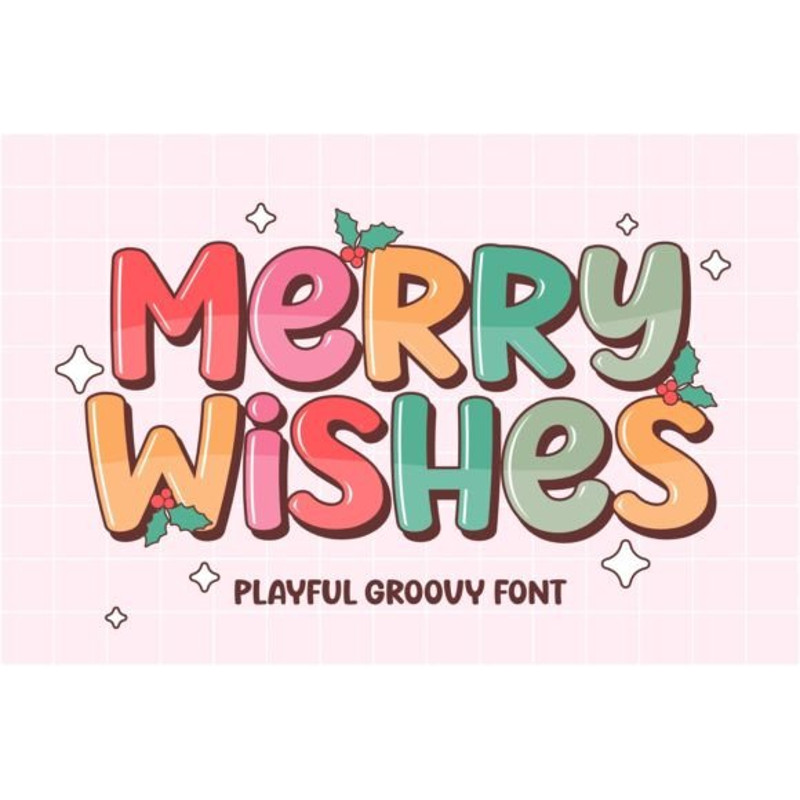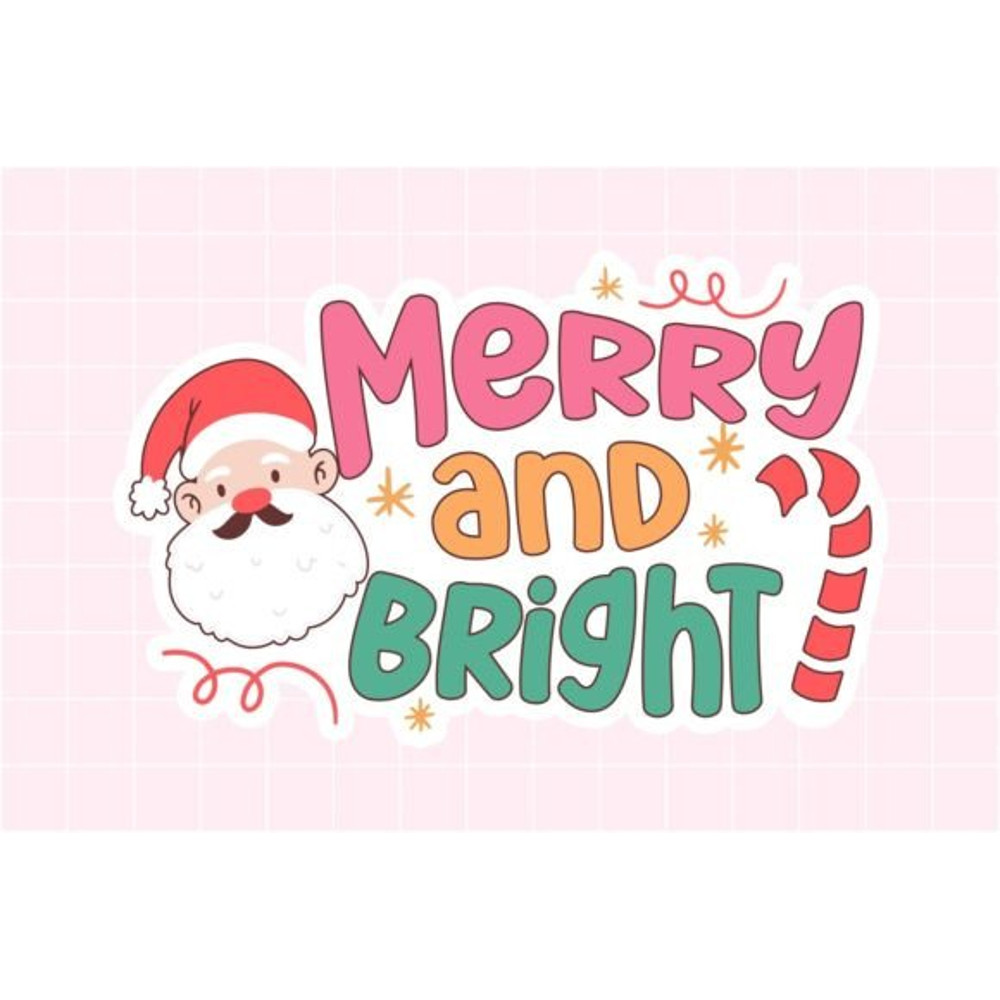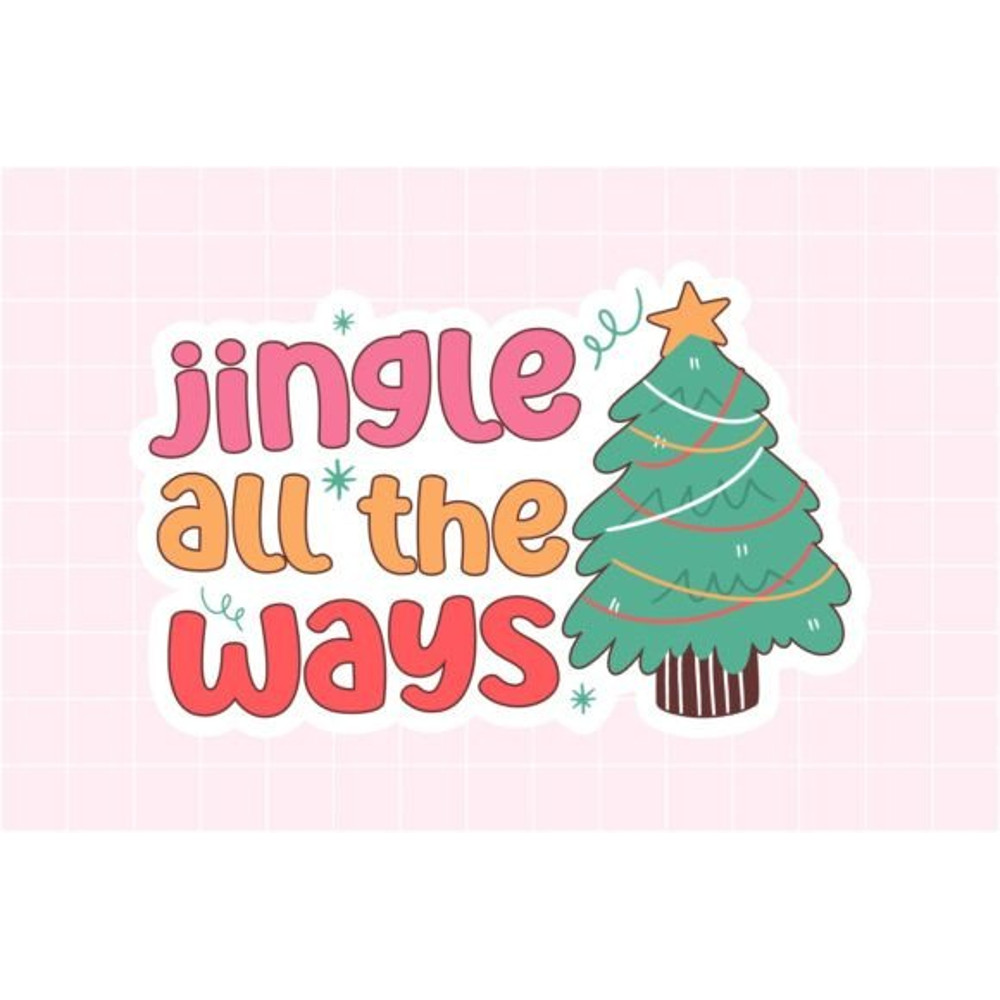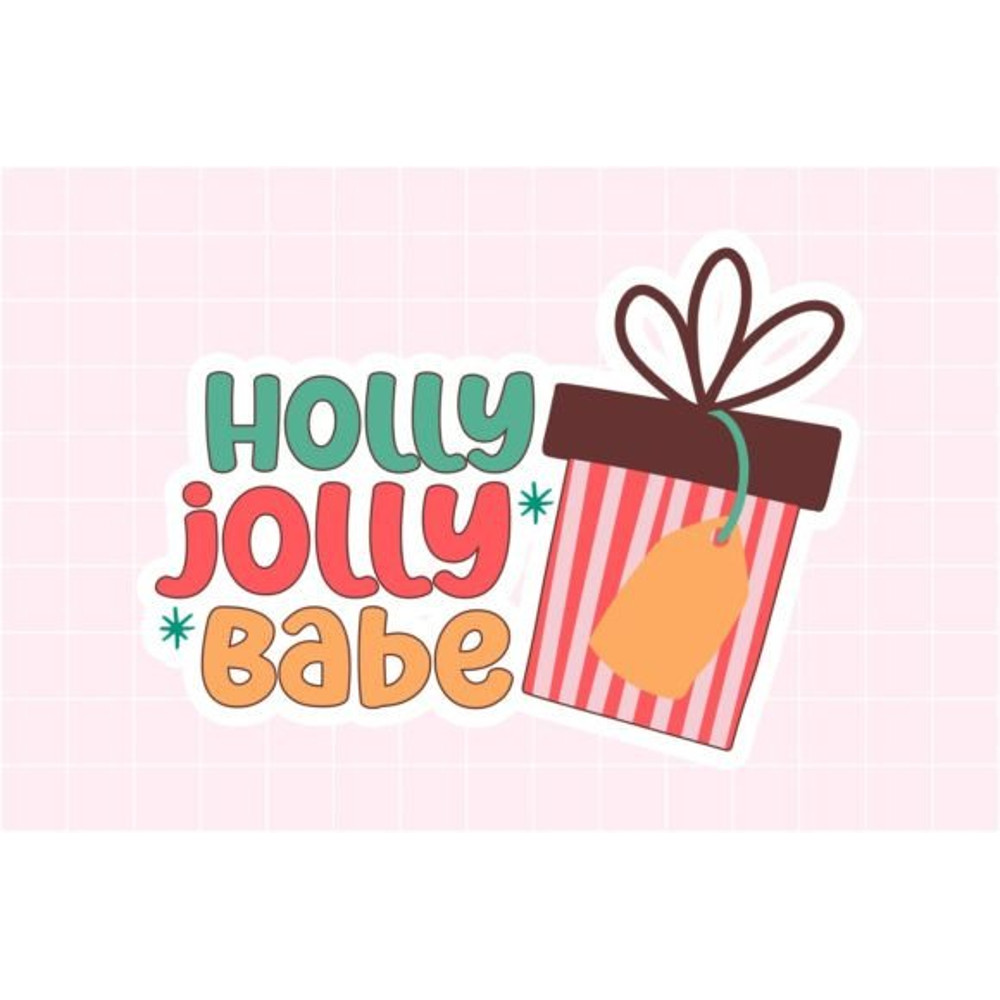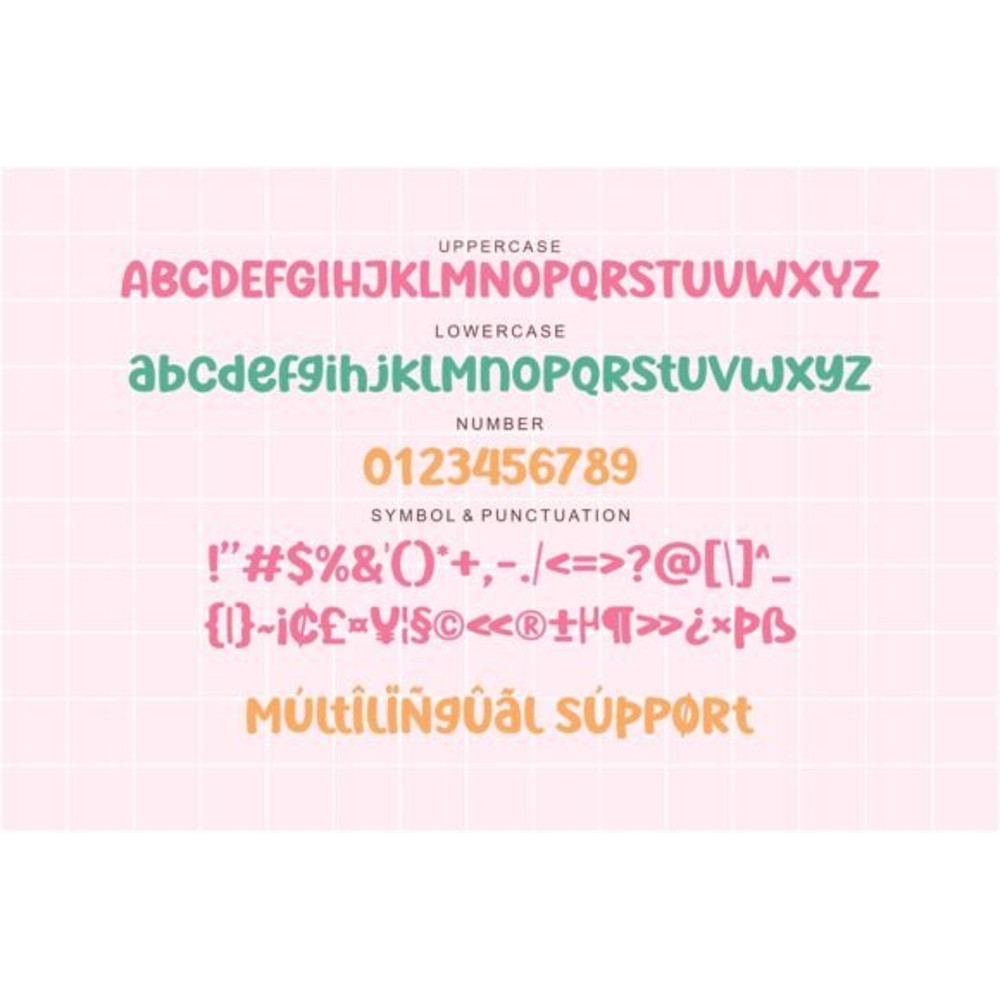
Merry Wishes Font
Merry Wishes is a fun groovy font, inspired by retro bold typography. This font is perfect for a design that requires a playful accent. suitable for Christmas design, book covers, posters, packaging, merchandise, logotype, and much more.